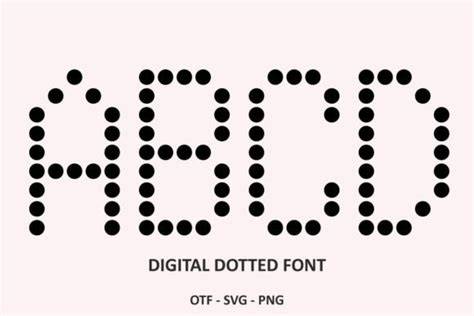
What Are Dot Fonts?
In the ever-evolving world of digital typography, dot fonts are one of the latest trends to hit the scene. Dot fonts, also known as dot type, are a style of digital typeface that is made up of a pattern of dots, rather than traditional letterforms. This unique style is becoming increasingly popular among graphic designers and digital artists, due to its distinct and eye-catching look.
Dot fonts are created by arranging a series of dots in a particular pattern. Each dot is placed on a grid, which is then manipulated to create the desired shape or letterform. This type of typeface is also known as halftone or pointillist type, due to its pixel-like appearance. Dot fonts are often used to create a modern, futuristic feel to a design.
The main advantage of using dot fonts is that they can be easily scaled up or down without losing any of their detail or clarity. This is because each dot is precisely placed on the grid, making it easier to adjust the size without losing any of the intricate details of the typeface. Additionally, dot fonts can be used to create a minimalist look, as they don’t have any additional elements such as serifs or ligatures, making them ideal for minimalistic designs.
How to Use Dot Fonts
Due to their unique visual style, dot fonts can be used in a variety of different ways. They can be used to create logos, titles, and other typographic elements in digital designs. Additionally, they can be used to create eye-catching headlines and titles on websites, as well as in printed designs.
When using dot fonts, it’s important to keep in mind that they work best when used sparingly. Too much dot typography in a design can be overwhelming and difficult to read, so it’s important to use them judiciously. Additionally, it’s important to remember that dot fonts don’t always work well in small sizes, as the individual dots can become difficult to see.
Dot fonts are a unique and eye-catching typeface style that is becoming increasingly popular among digital artists and graphic designers. They can be used to create logos, titles, and other typographic elements in digital designs, as well as in printed designs. They are easily scalable, making them perfect for logos and other elements that need to be resized for different uses. Additionally, they can be found in a variety of places, from online font libraries to specialized graphic design websites.